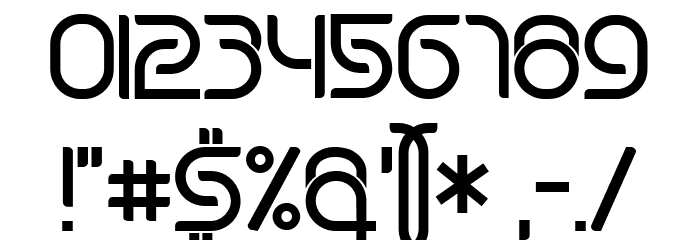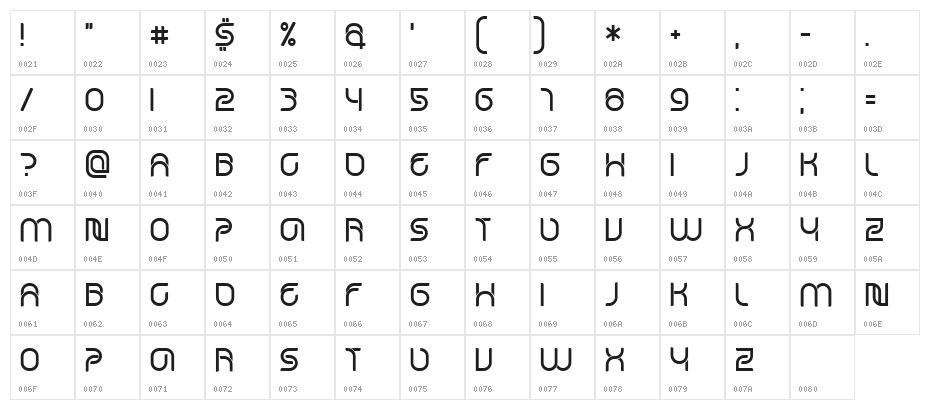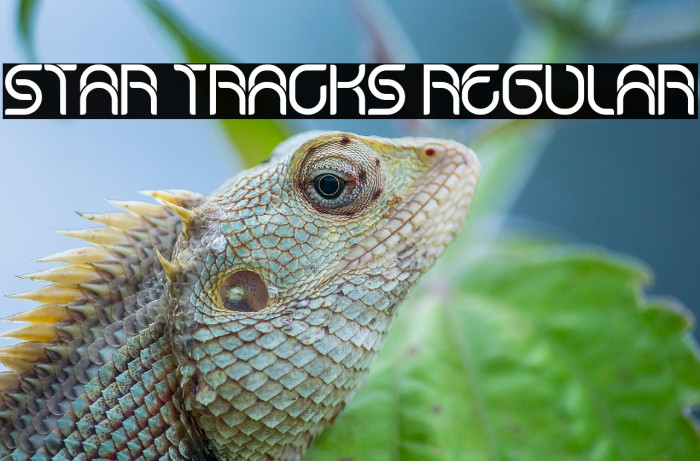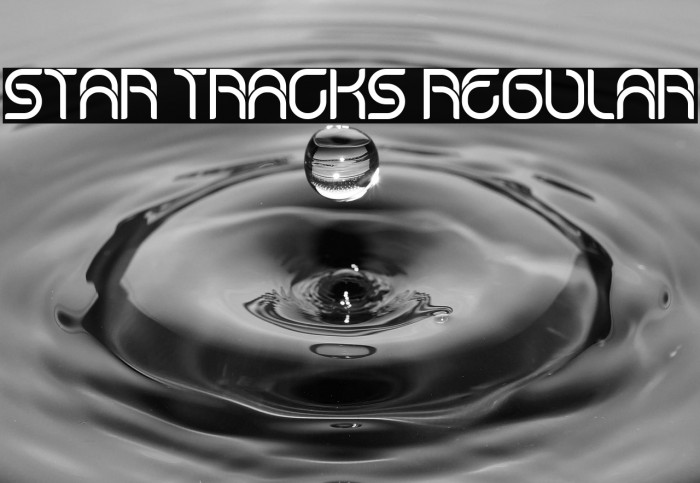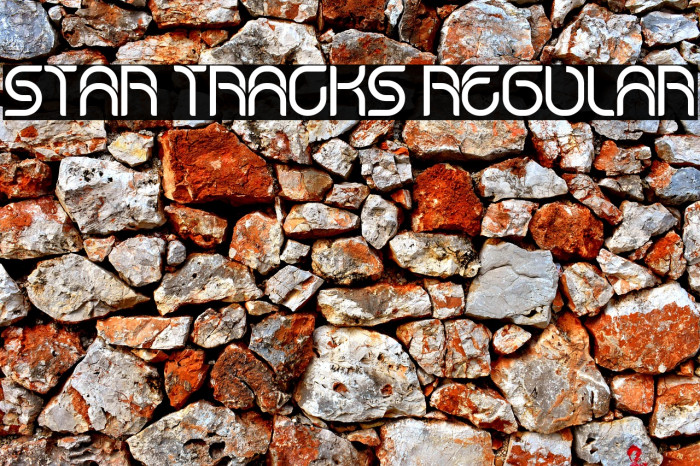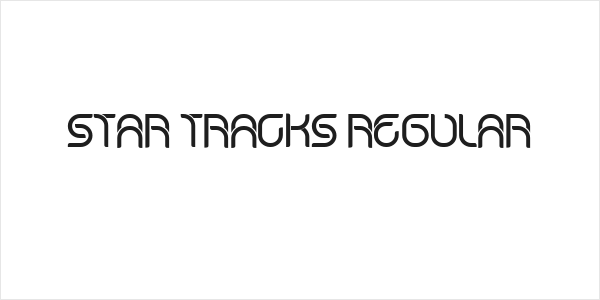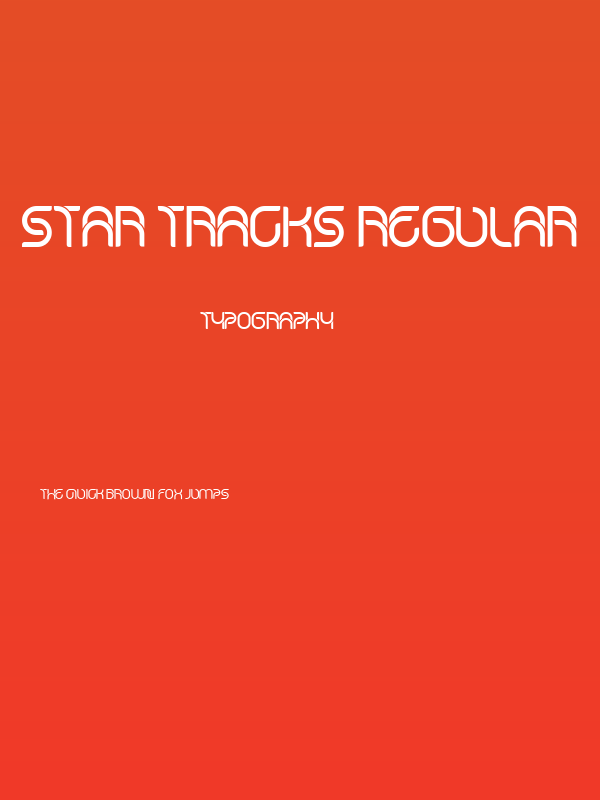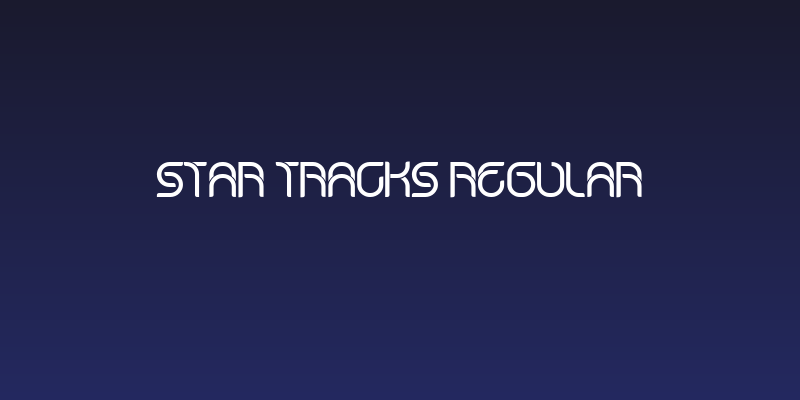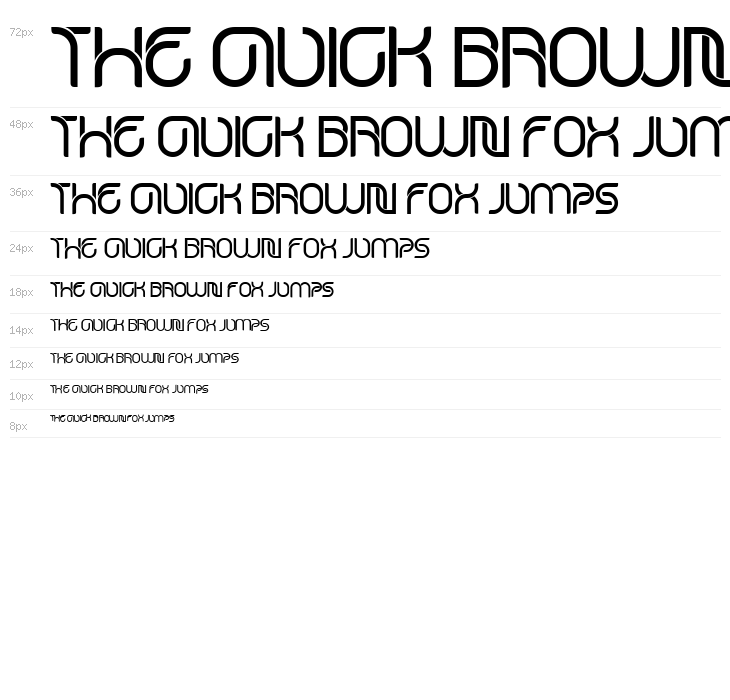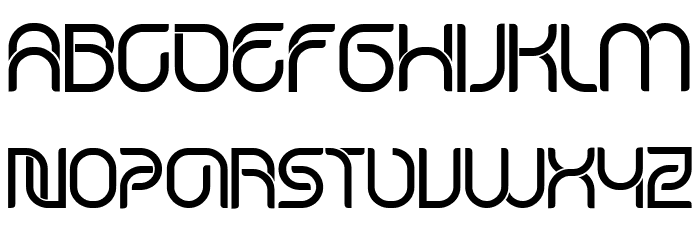
Star Tracks Regular Font
Star Tracks Regular Description
This font features a futuristic and geometric design, characterized by its rounded edges and clean lines. The letters are constructed with a consistent stroke width, giving it a uniform appearance. The uppercase and lowercase letters share a similar structure, enhancing its modern aesthetic. The numerals and special characters are designed to match the overall style, making it cohesive and visually appealing. This font is ideal for projects that require a sleek and contemporary look, such as technology branding, sci-fi themes, or modern advertising.
| Use Case | Headlines, Logos, Digital Interfaces |
| Proposed Projects | Ideal for technology branding, sci-fi themes, modern advertising, and digital interfaces. |